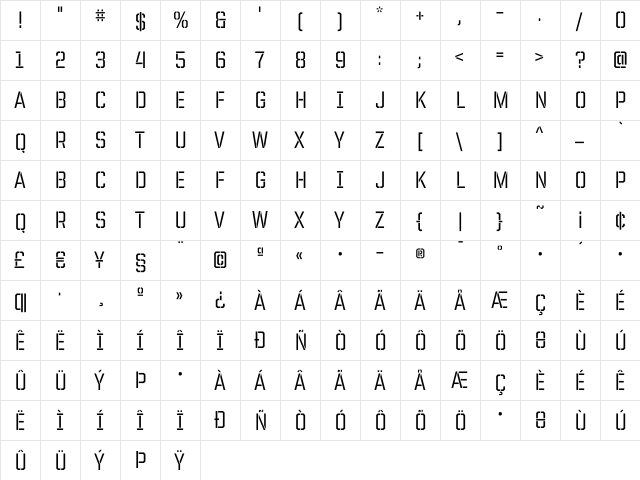
HouseSampler-UnitedStencil Regular
| Foundry | C) House Industries/Brand Design Co. Inc |
| Designer | House Industries |
Design Context for HouseSampler-UnitedStencil Typeface
HouseSampler-UnitedStencil has the rough pragmatism of spray-painted stencil signage, adding a raw, street-level authenticity to designs.
A strong choice for packaging that needs edge, warehouse aesthetics, and rough-and-ready visual identities.
Pro Tip: Use HouseSampler-UnitedStencil at large sizes on packaging, posters, or apparel where the stencil cutaways read clearly. Avoid small sizes where those gaps become visual noise.